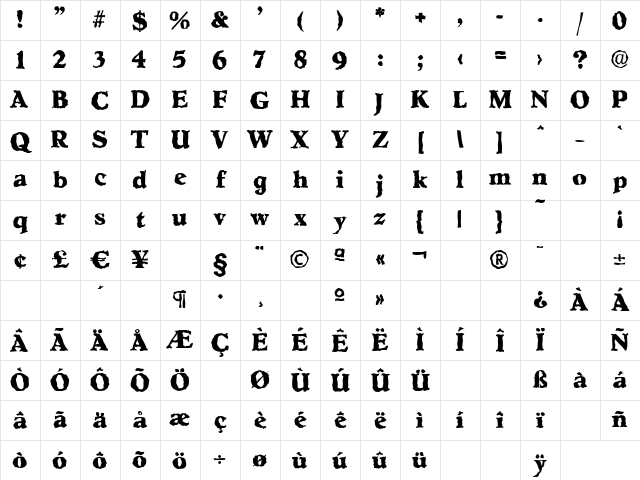
Complete HobokenRandom-Xbold Regular glyph index. Displaying only characters natively supported by HobokenRandom-Xbold Regular font.
HobokenRandom-Xbold is a composed and adaptable typeface that performs quietly and consistently across a wide range of design contexts. Its bold stroke weight gives it real presence on the page.